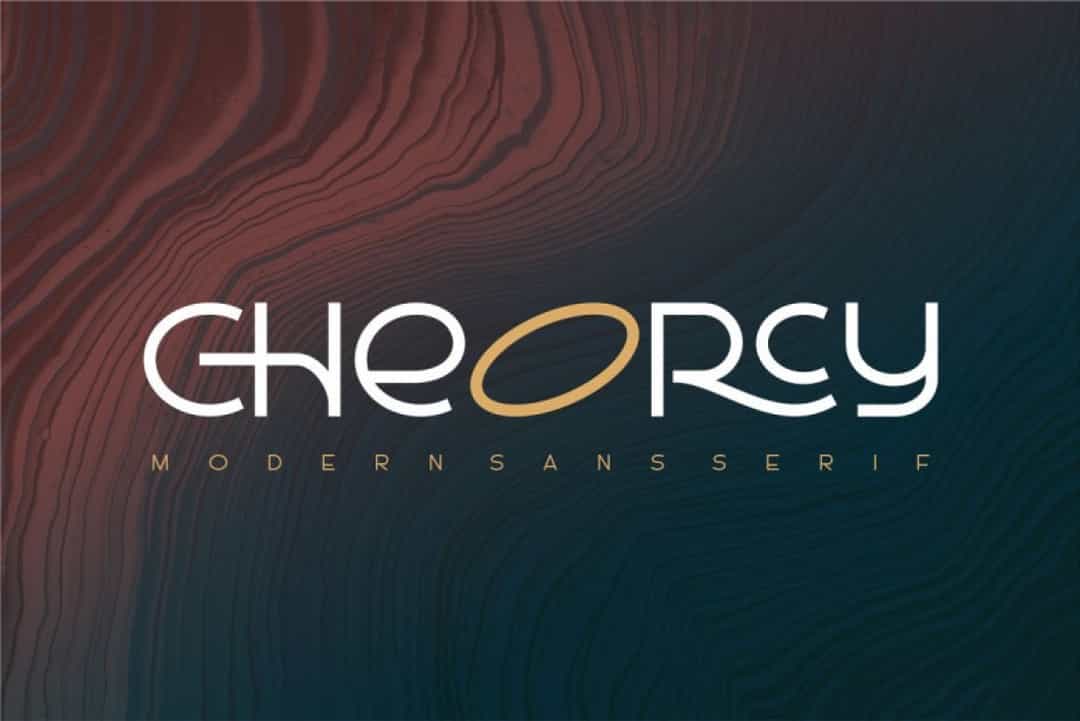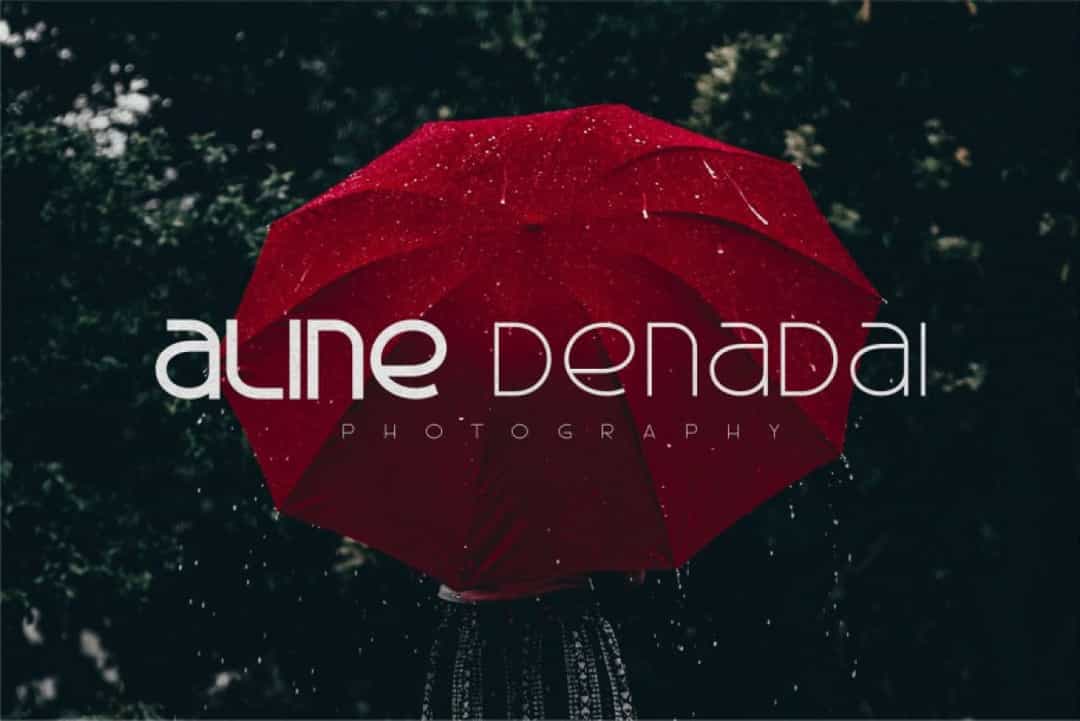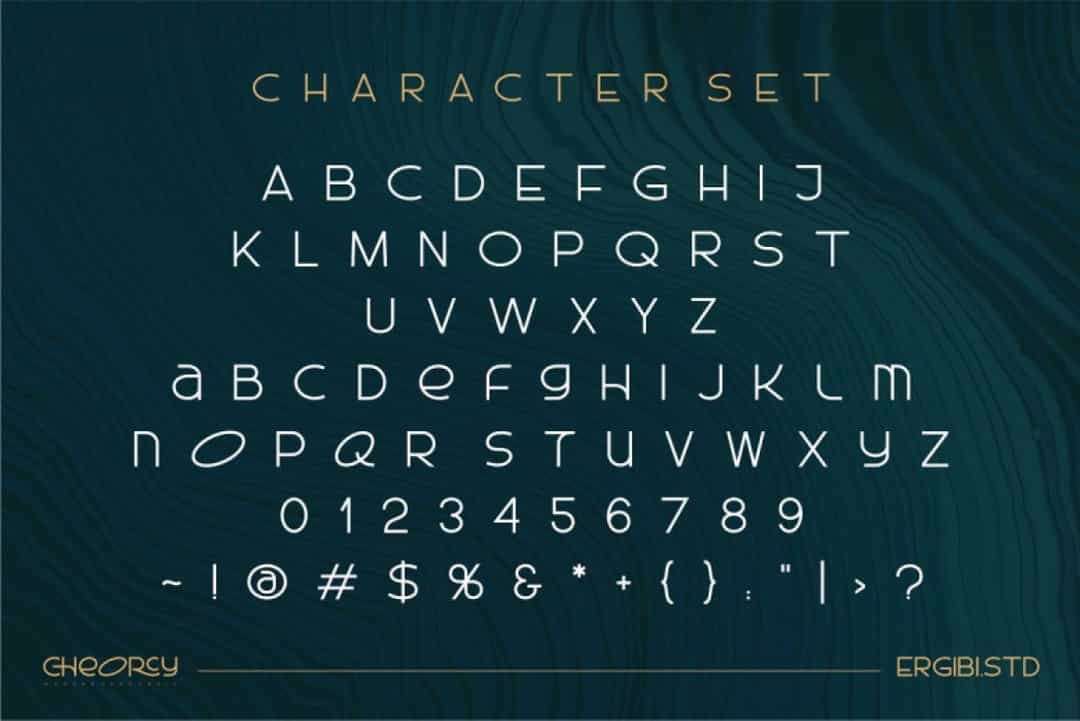
Cheorcy Font is an elegant font inspired by its logo of the same name and perfect for logotypes, apparel, packaging, branding and more. With clean lines and varied weights that blend perfectly into design fields such as labels titles magazines advertising etc; Cheorcy Sans Serif also supports multilingual users!